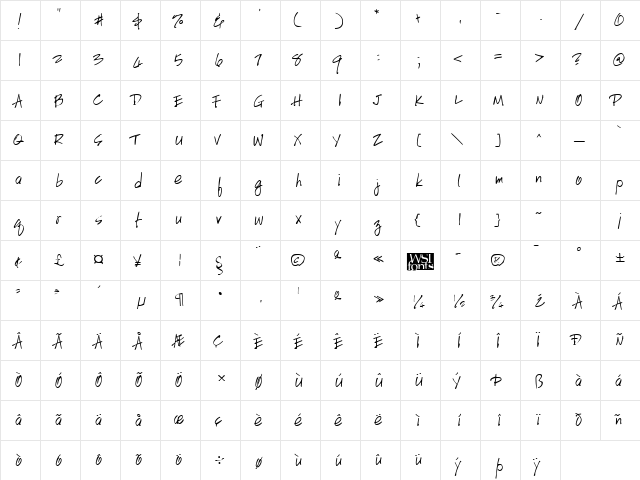
HandScriptLefty Italic Font Preview
HandScriptLefty Italic
HandScriptLefty Italic Font Details
Design Context for HandScriptLefty Typeface
HandScriptLefty brings a calligraphic fluidity to the page — its connecting strokes and expressive curves give it an unmistakably human quality.